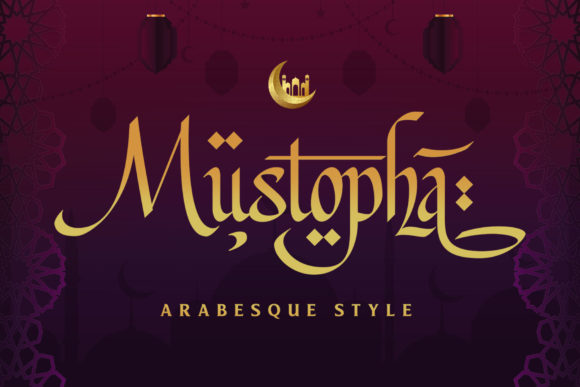
Step into the world of Mustopha Font, an extraordinary creation crafted by Arterfak Project, and discover a font that embodies the spirit of Eid Mubarak like no other. Immerse yourself in the beauty of its Arabic-inspired design, where each character dances with elegance and grace.
With Mustopha Font, your designs will radiate a charm that is both timeless and captivating. Its intricate details and flowing curves will leave a lasting impression on your audience, whether you're creating food menus, posters, flyers, or any print material that deserves to stand out.
Imagine the impact of your food menu adorned with Mustopha Font. Its delicate strokes will tantalize taste buds even before the first bite. Your customers will embark on a culinary journey that engages their senses and leaves them craving for more.
Envision your poster or flyer adorned with Mustopha Font. Its captivating presence will draw attention like a magnet, inviting passersby to delve into the depths of your message. Your words will resonate with a power that commands attention and inspires action.
Unleash the potential of Mustopha Font in your print designs and witness the transformation. Its versatility knows no bounds, allowing you to create masterpieces that capture the essence of Eid Mubarak. From traditional greetings to contemporary expressions, Mustopha Font will elevate your designs to new heights.